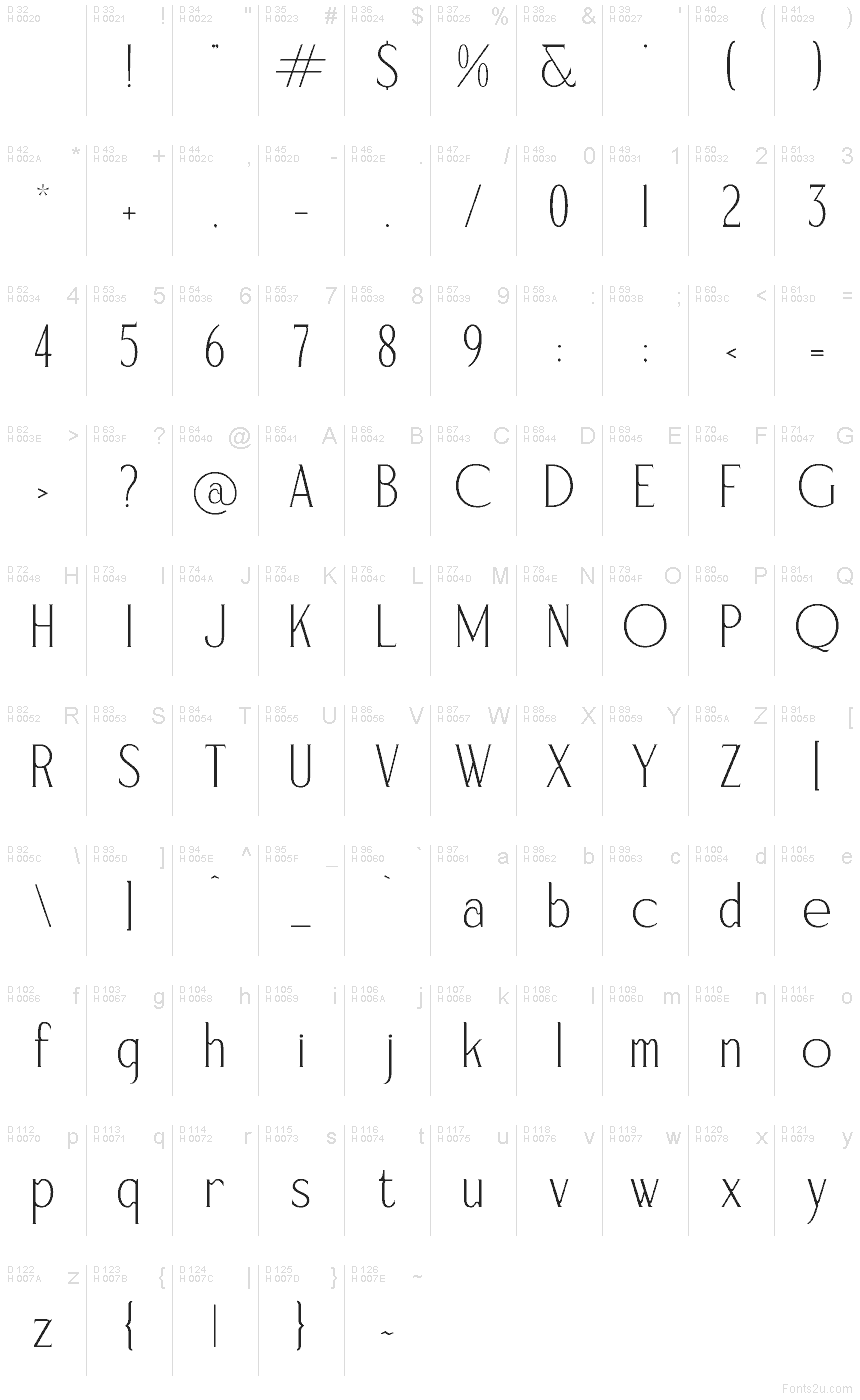
Serafilms
Serafilms font by Storytype Studio is a free light serif font. It stands out with razor-fine hairlines, slim verticals, and sharply clipped serifs that feel polished without getting fussy. The tall rhythm and airy counters give headlines a cinematic hush—like credits drifting across a velvet screen—while subtle curves add a whisper of warmth.
This free font shines on fashion branding, film titles, luxury packaging, editorial headers, beauty campaigns, and refined posters or invitations. Using Serafilms at generous sizes with a touch of letterspacing keeps those delicate strokes crisp. For balance, pair it with a neutral sans in small text, letting Serafilms carry the spotlight up top.